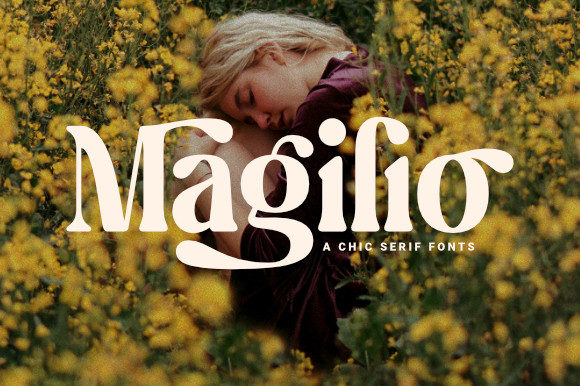
Journey into the realm of timeless elegance with Magilio Font, a serif masterpiece that exudes sophistication and grace. This meticulously crafted font boasts intricate details and a refined aesthetic, making it the perfect choice for fashionistas seeking to elevate their designs with a touch of luxury.
With Magilio Font, your words will dance across the page with an air of effortless charm. Its elegant curves and fine lines lend a sense of sophistication to every letter, transforming your creations into visually stunning masterpieces. Whether you're designing logos, crafting social media posts, or creating eye-catching marketing materials, Magilio Font is your ticket to design excellence.
Unleash your creativity and let Magilio Font take you on a journey of typographic enchantment. Its versatility knows no bounds, allowing you to effortlessly create designs that exude both elegance and warmth. From delicate wedding invitations to bold fashion statements, Magilio Font seamlessly adapts to your vision, adding a touch of refinement to every project.
Embrace the beauty of Magilio Font and elevate your designs to new heights. Its timeless appeal and unwavering elegance will leave a lasting impression on your audience, ensuring that your message is delivered with impact and finesse. So why settle for ordinary when you can create something truly extraordinary? Indulge in the allure of Magilio Font today and unlock a world of typographic possibilities.